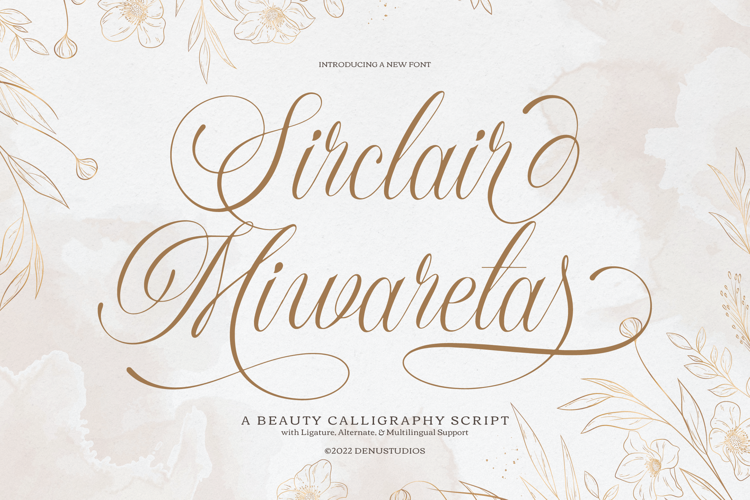
Sirclair Miwareta Font
Sirclair Miwareta | Beauty Callighrapy product packaging, mugs, quotes, posters, shopping bags, t-shirts, book covers, name card, invitation cards, greeting cards, label, photography, watermark, special events, and all your other lovely projects that need a Callighrapy taste.